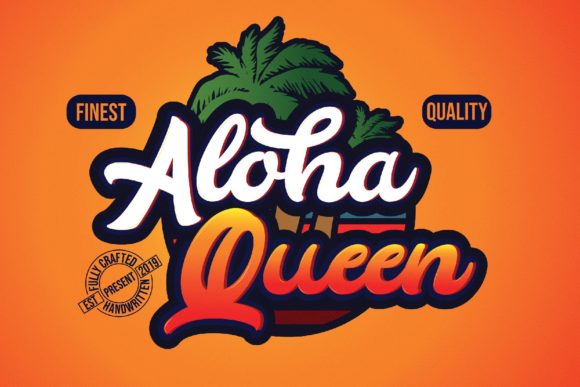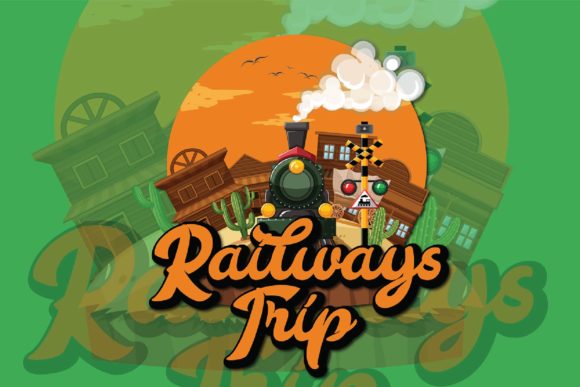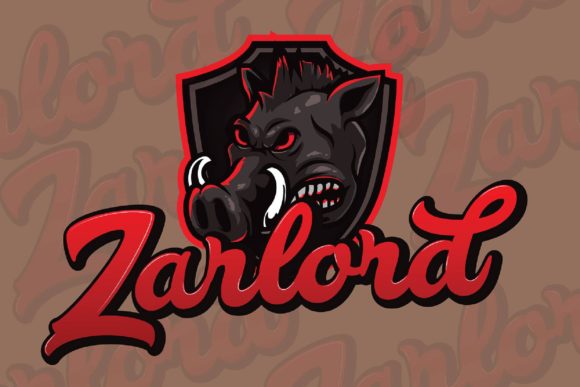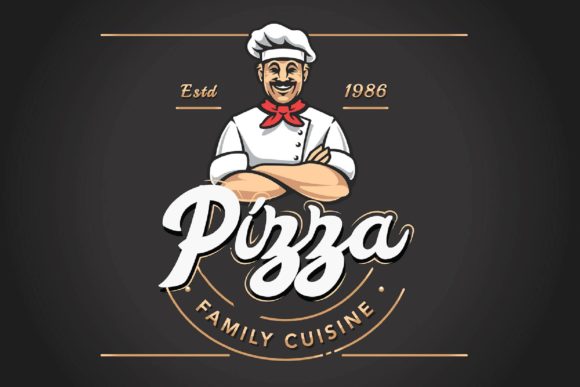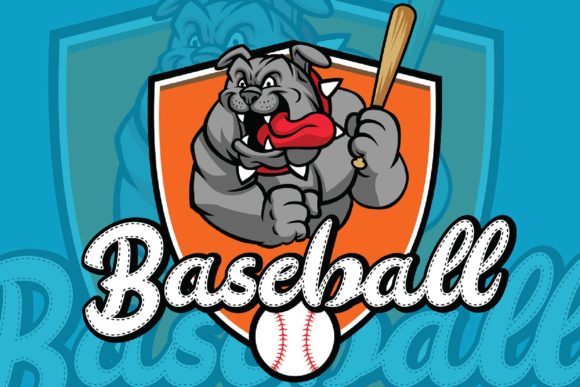
HomeScript FontsAloha Font Script Fonts Aloha Font FacebookXPinterestWhatsApp Aloha Font Poster 2 Aloha Font Poster 3 Aloha Font Poster 4 Aloha Font Poster 5 About Aloha Font Aloha is a retro handwritten font with an extraordinary feel. Use it to turn any design project into a standout! DOWNLOAD NOW People also explored Aslaha Biladina Font Kally Dreams Font Mishella Font Beestory Font Montra Font Shilmi Adinie Font Hello Morning Font Wedding Flourish Monogram Font Rossaye Font 270 0 TagsAloha Font Previous articleElvitha FontNext articleQuenyland Font LEAVE A REPLY Cancel reply Comment: Please enter your comment! Name:* Please enter your name here Email:* You have entered an incorrect email address! Please enter your email address here Website: Save my name, email, and website in this browser for the next time I comment. Personal Use Free Eric”s Personal Use Free Read more about this font Vinograd Personal Use Free Read more about this font Haris Wood Personal Use Free Read more about this font BD RatterBit Personal Use Free Read more about this font BLOG Top 7 Google Fonts Alternatives for Faster and Privacy-Friendly Web Design (2025) Top 7 Google Fonts Alternatives for Faster and Privacy-Friendly Web Design (2025) When it comes to web typography, Google Fonts has long been the go-to... How to Cut Any Font on Cricut: Convert a Font to SVG (Free) Best Fonts for YouTube Videos: Make Your Thumbnails Stand Out 5 Fonts That Will Dominate Design Trends in 2026